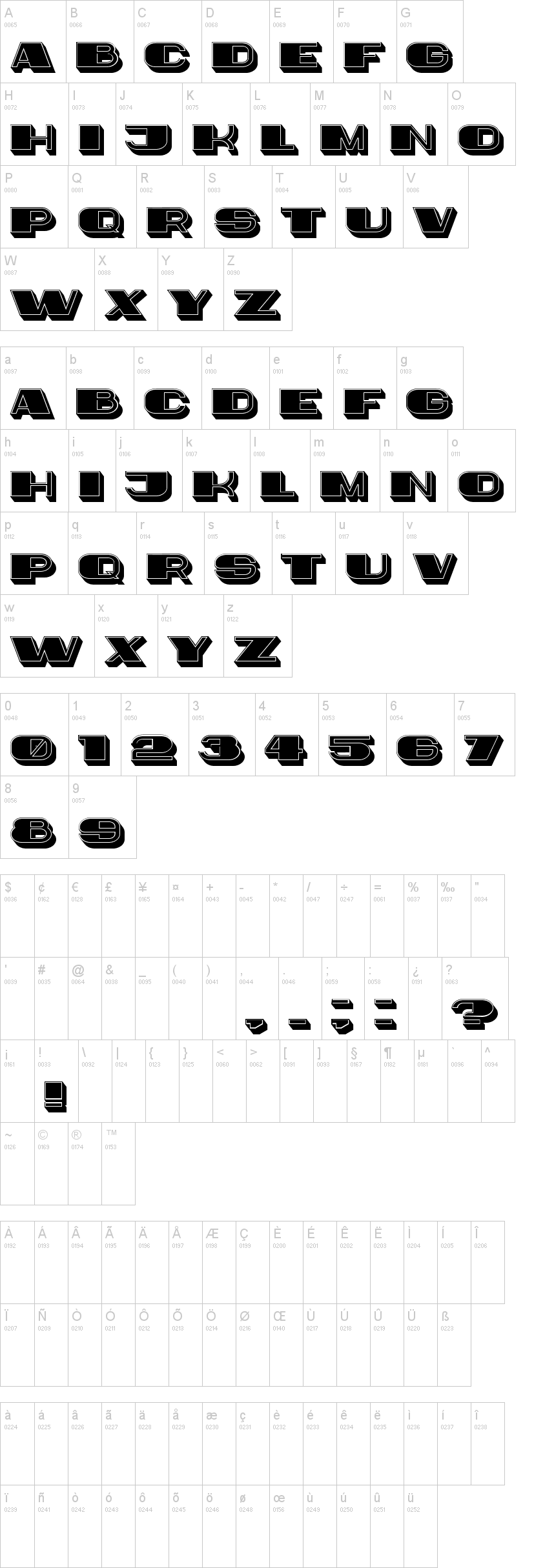
Idiot-Italic.ttfIdiotGradient.ttfIdiotGradient-Italic.ttfNote of the authorIdiot is an awesome and bold display font that will look stunning on any poster flyer or print.